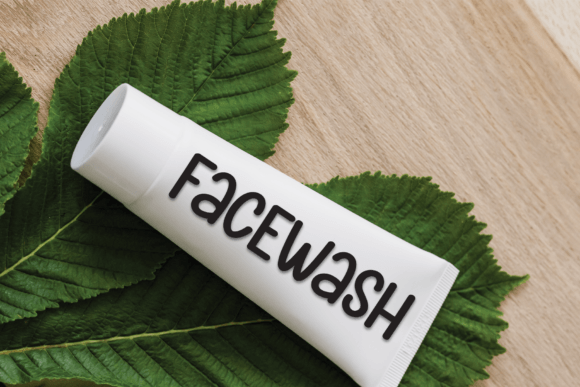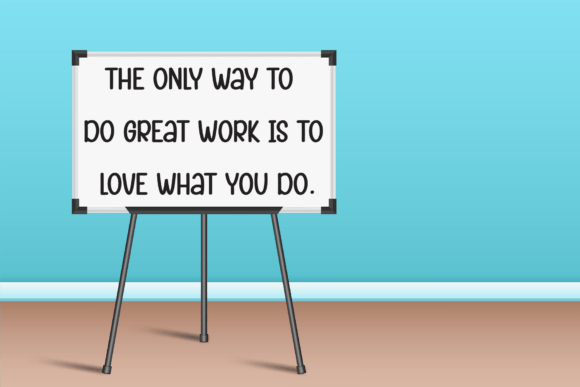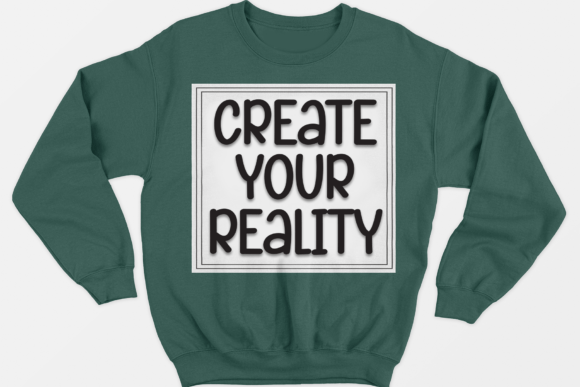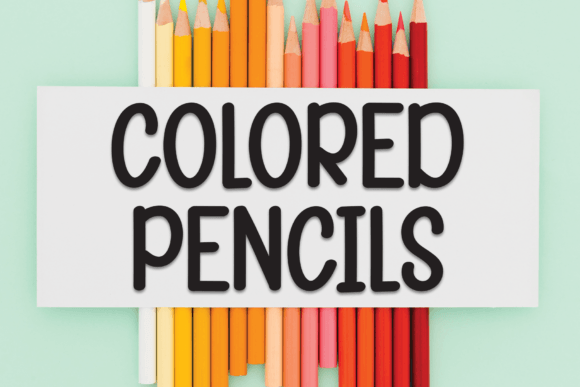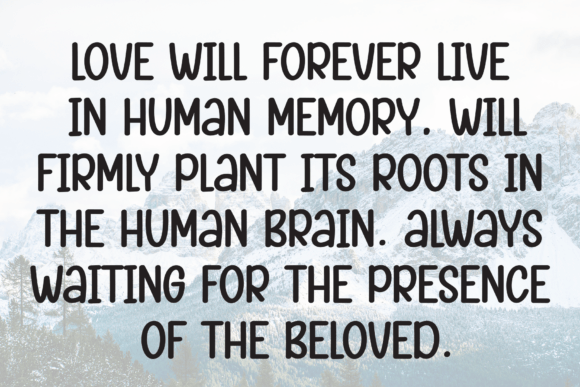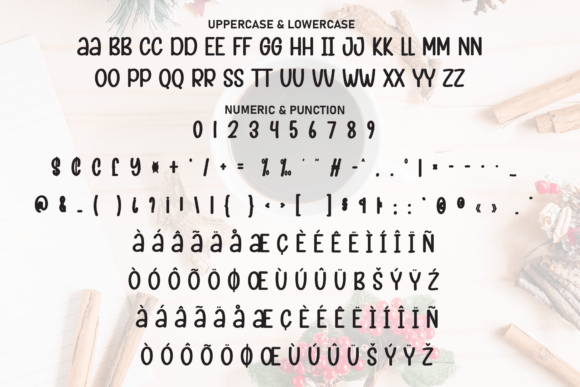
Introducing Christmas Warm Coffee: The Ultimate Font for Festive Designs
As the holiday season approaches, designers and crafters are on the lookout for the perfect typography to bring their Christmas-themed projects to life. Look no further than Christmas Warm Coffee, a playful and modern font that’s sure to add a touch of festive cheer to your designs. In this article, we’ll dive into the details of this charming typeface and explore how it can elevate your holiday creations.
A Festive Font with a Playful Personality
Christmas Warm Coffee is a bold, rounded font that’s bursting with personality. Its fun and approachable style makes it perfect for capturing the magic of the season, and its versatility ensures it can be used across a wide range of design projects. Whether you’re creating greeting cards, party invitations, gift tags, posters, or social media graphics, this font is sure to bring a joyful energy to your work.
Key Features of Christmas Warm Coffee
- Bold and Rounded Letters: Christmas Warm Coffee features bold, rounded letters that are sure to grab attention. The rounded edges give the font a friendly and approachable feel, making it perfect for designs that require a playful touch.
- Playful and Modern Style: This font boasts a modern style that’s perfect for designers who want to create fresh and contemporary designs. The playful personality of Christmas Warm Coffee ensures your projects will stand out from the crowd.
- Festive Personality: The font’s festive personality makes it ideal for Christmas-themed designs. It’s the perfect choice for designers who want to create holiday projects that are full of cheer and joy.
Perfect for Christmas-Themed Designs
Christmas Warm Coffee is specifically designed with Christmas-themed projects in mind. Its festive personality and playful style make it perfect for a wide range of holiday designs, including:
- Greeting Cards: Create beautiful and festive greeting cards that will make your loved ones feel special.
- Party Invitations: Design eye-catching party invitations that will get your guests in the holiday spirit.
- Gift Tags: Add a personal touch to your gifts with custom gift tags featuring the Christmas Warm Coffee font.
- Posters: Create stunning posters that will showcase your holiday cheer.
- Social Media Graphics: Elevate your social media presence with festive graphics featuring the Christmas Warm Coffee font.
Why Choose Christmas Warm Coffee?
With so many fonts to choose from, why should you choose Christmas Warm Coffee for your holiday designs? Here are just a few reasons:
- Unique and Eye-Catching: Christmas Warm Coffee is a unique and eye-catching font that’s sure to make your designs stand out.
- Versatile: This font is versatile and can be used across a wide range of design projects, from print to digital.
- Easy to Read: The bold and rounded letters of Christmas Warm Coffee make it easy to read, even at small sizes.
Tips for Using Christmas Warm Coffee
To get the most out of Christmas Warm Coffee, here are a few tips to keep in mind:
- Pair with Other Fonts: Experiment with pairing Christmas Warm Coffee with other fonts to create interesting and dynamic designs.
- Use Bold and Bright Colors: The bold and playful style of Christmas Warm Coffee lends itself well to bold and bright colors. Don’t be afraid to get creative with your color palette.
- Experiment with Textures and Patterns: Add an extra layer of interest to your designs by experimenting with textures and patterns.
Christmas Warm Coffee is a playful and modern font that’s perfect for Christmas-themed designs. Its bold and rounded letters, playful style, and festive personality make it ideal for a wide range of holiday projects. Whether you’re a designer or crafter, this font is sure to bring a joyful energy to your work. So why wait? Download Christmas Warm Coffee today and start creating your own festive designs!